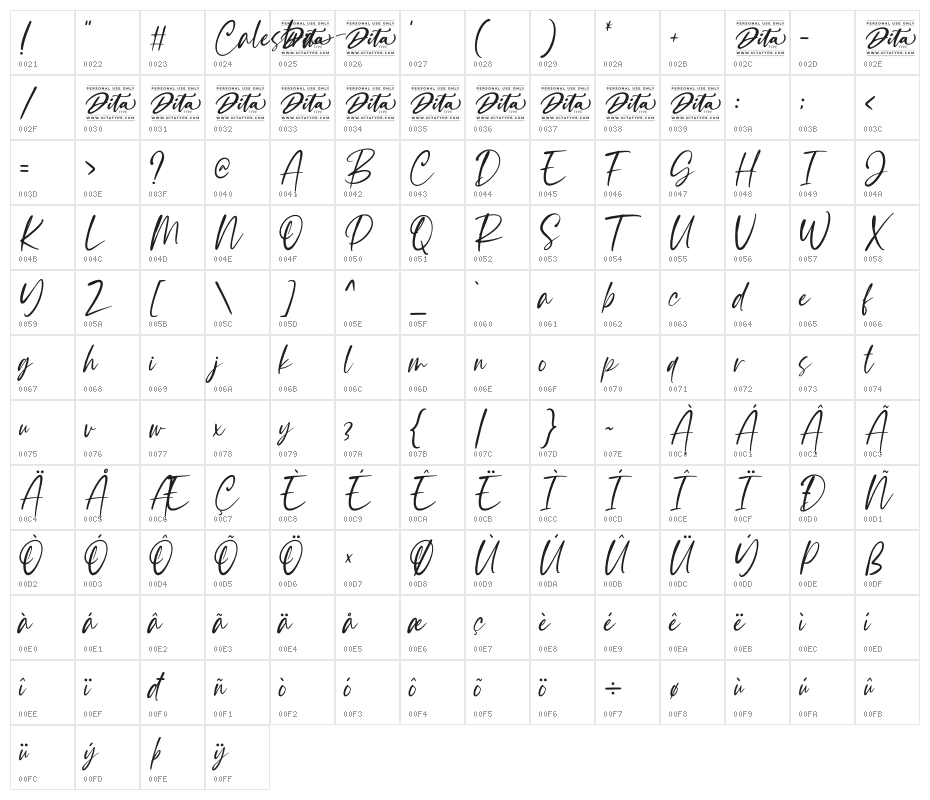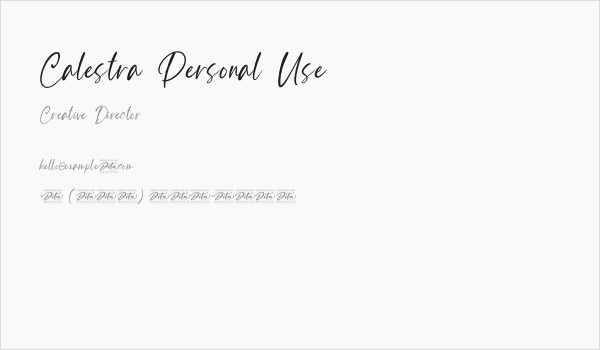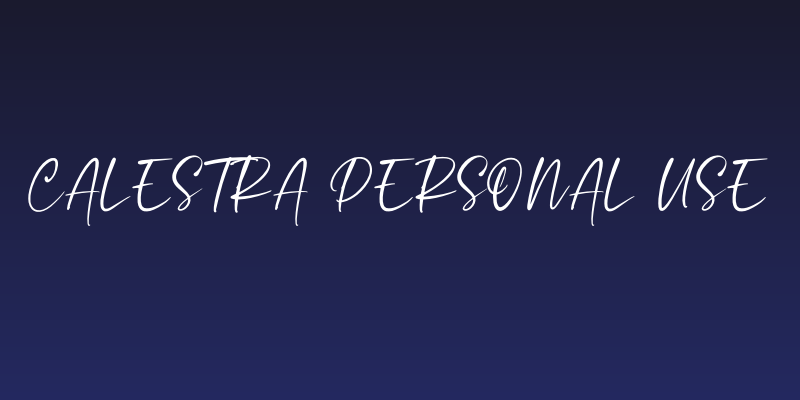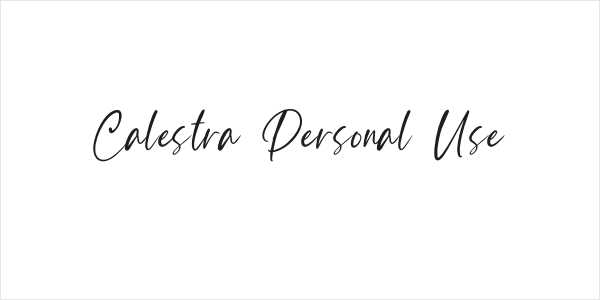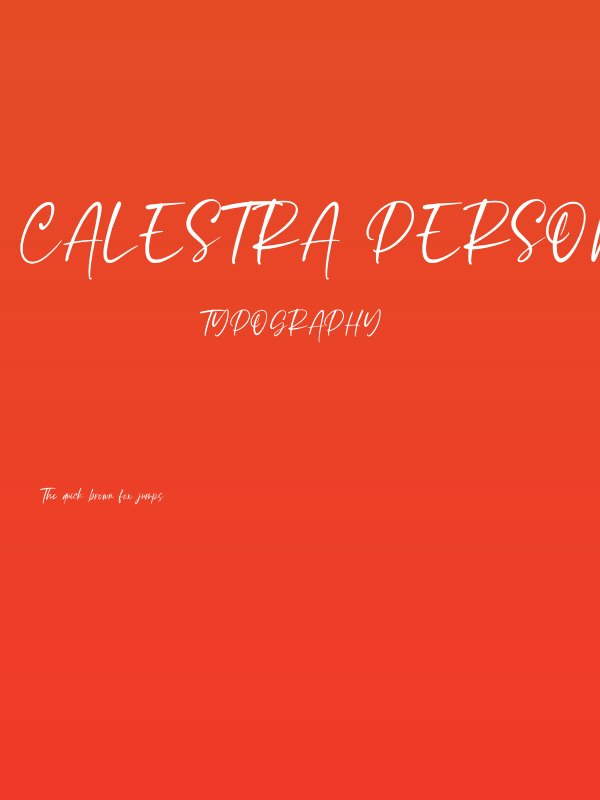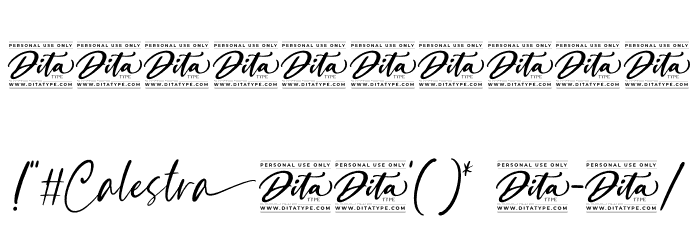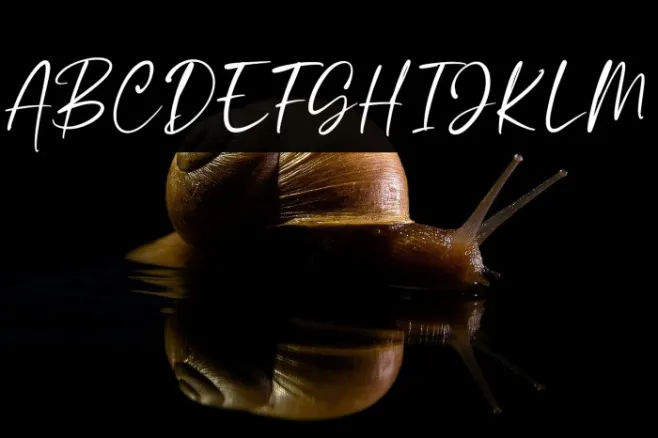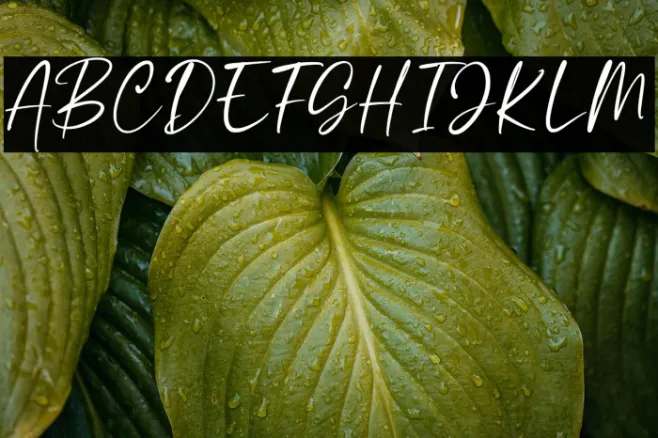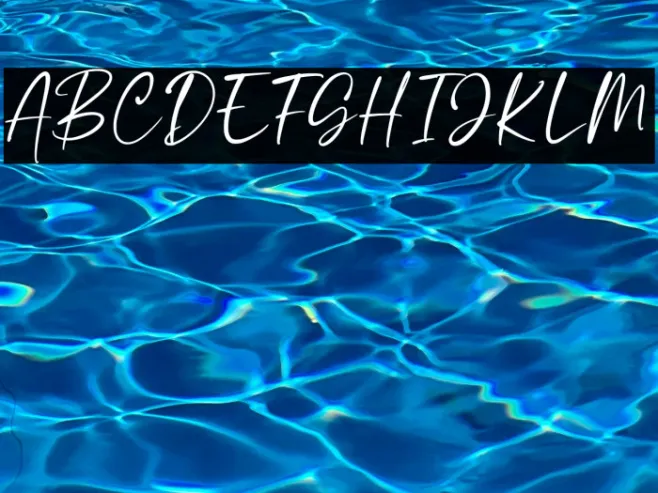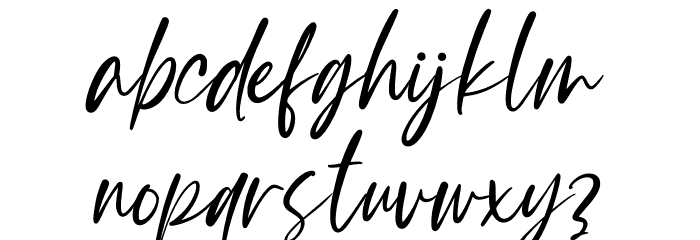
Calestra Personal Use Font
Calestra Personal Use Description
This font exhibits a lively and dynamic script style, characterized by its fluid and elegant strokes. The uppercase letters are tall and slightly slanted, giving a sense of movement and grace. The lowercase letters maintain a consistent flow, with some characters featuring playful loops and swashes. The font's overall appearance is both sophisticated and approachable, making it suitable for a variety of creative projects. The numerals and special characters are designed to complement the letterforms, ensuring a cohesive look across all text elements.
| Proposed Projects | Ideal for wedding invitations, branding, social media graphics, and greeting cards. |